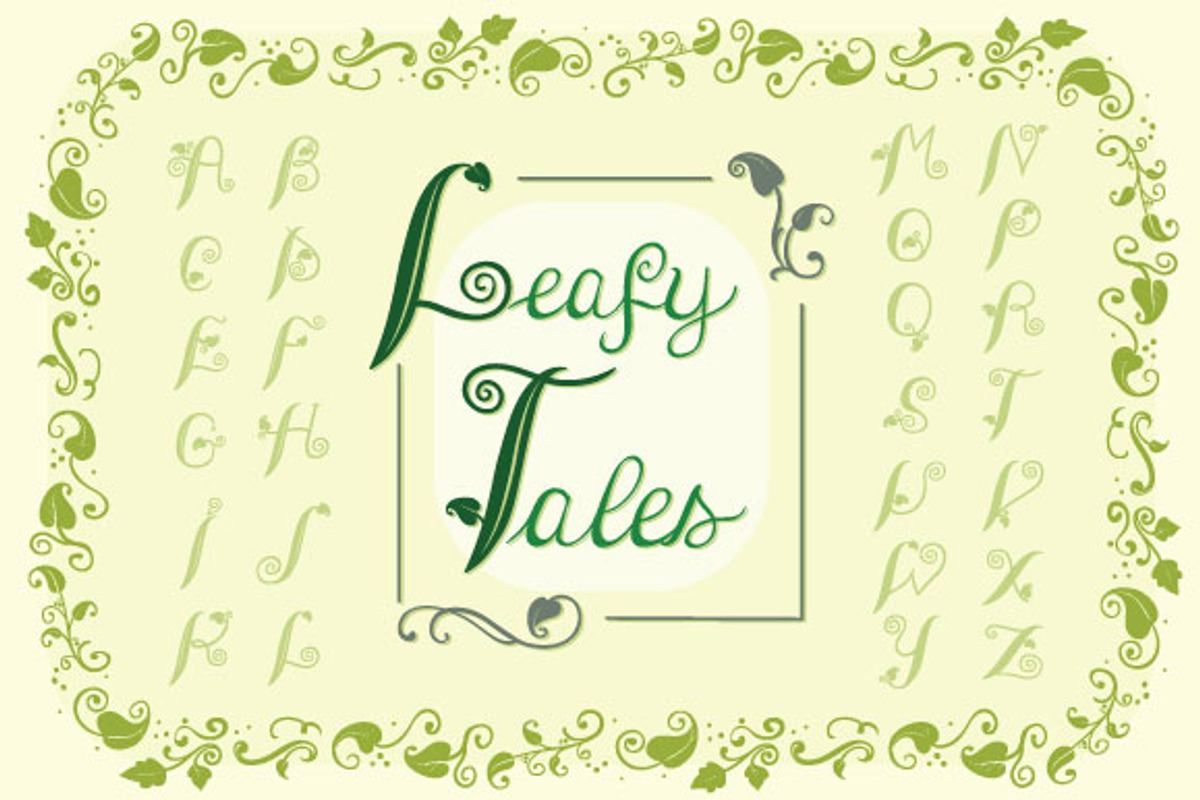
The Leafy Tales Fonts Free Download is a whimsical and nature-inspired typeface designed to add a touch of charm and creativity to your designs. With its soft, organic letterforms and leafy embellishments, this font is perfect for creating designs related to nature, gardening, eco-friendly brands, and more. Whether you're working on logos, invitations, or branding for a nature-themed project, Leafy Tales brings a fresh, earthy vibe to your work.
Leafy Tales Fonts Free Download is ideal for designers looking to incorporate nature-inspired typography into their work. Perfect for environmental branding, botanical designs, or whimsical creative projects, this font adds a lovely touch of nature to any design. Download this unique font today and infuse your work with organic beauty!